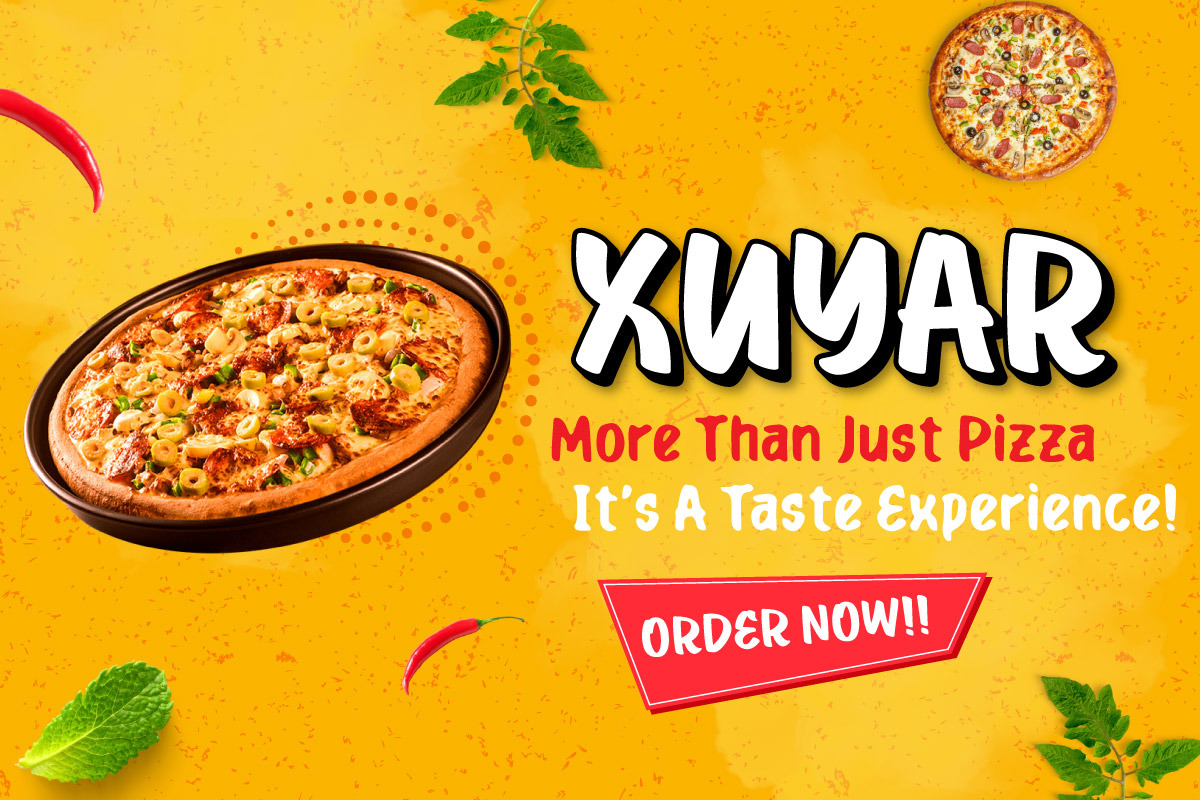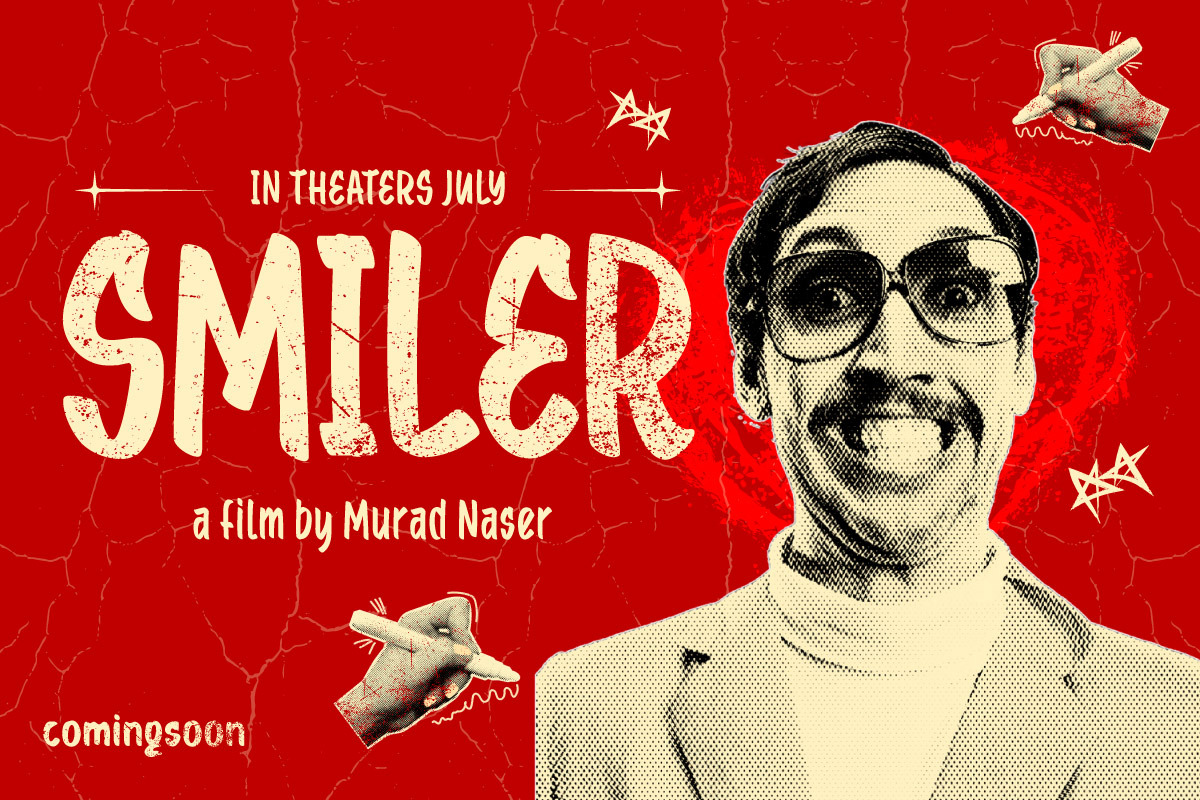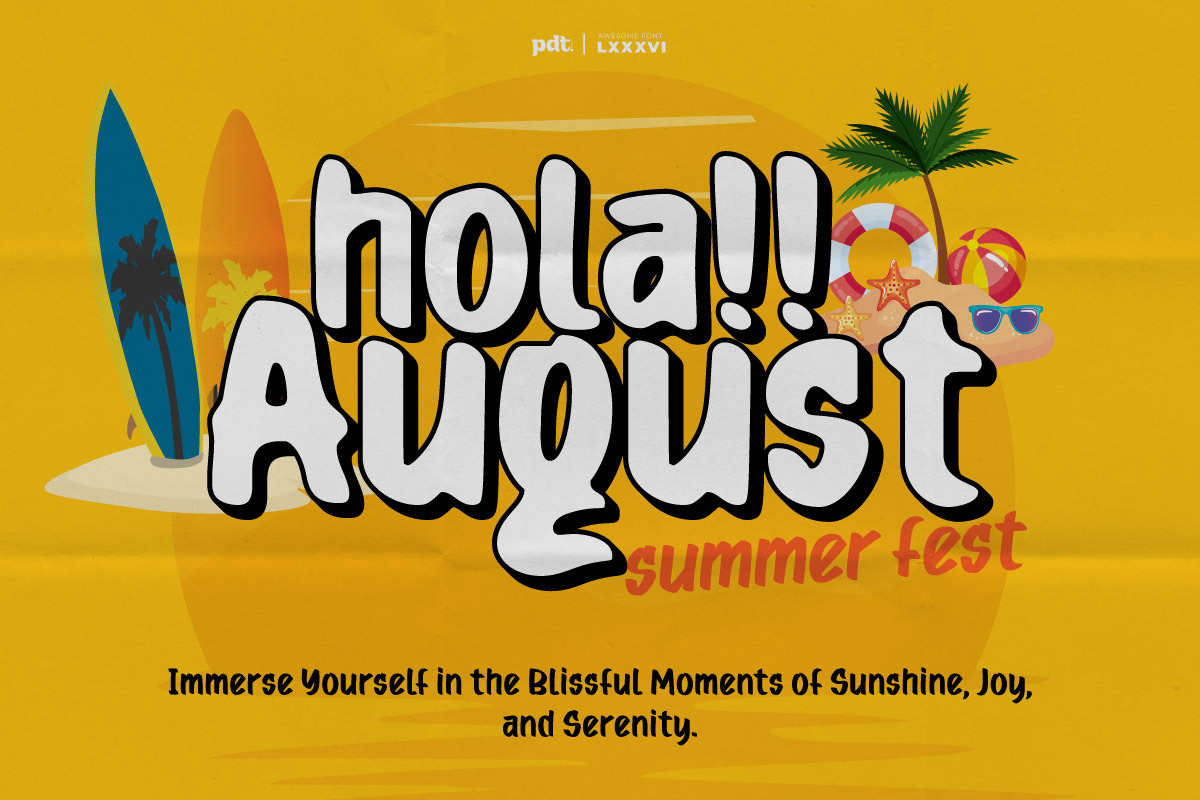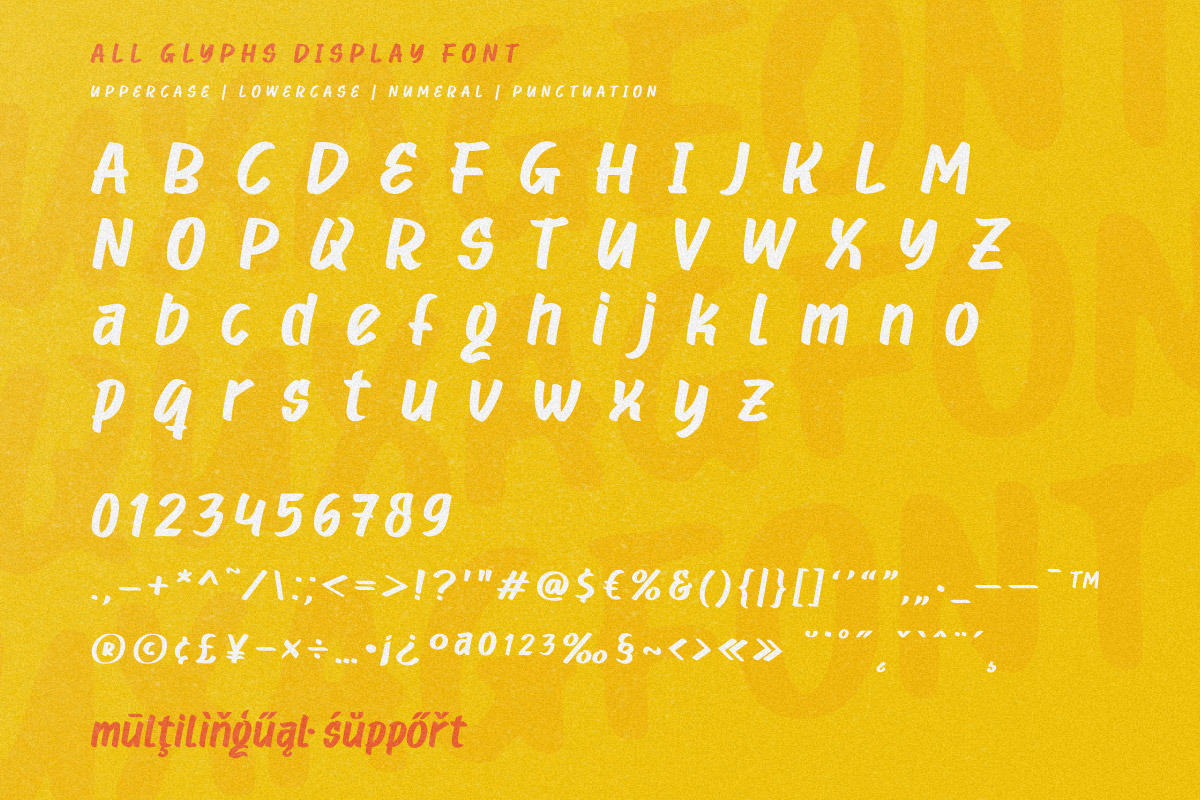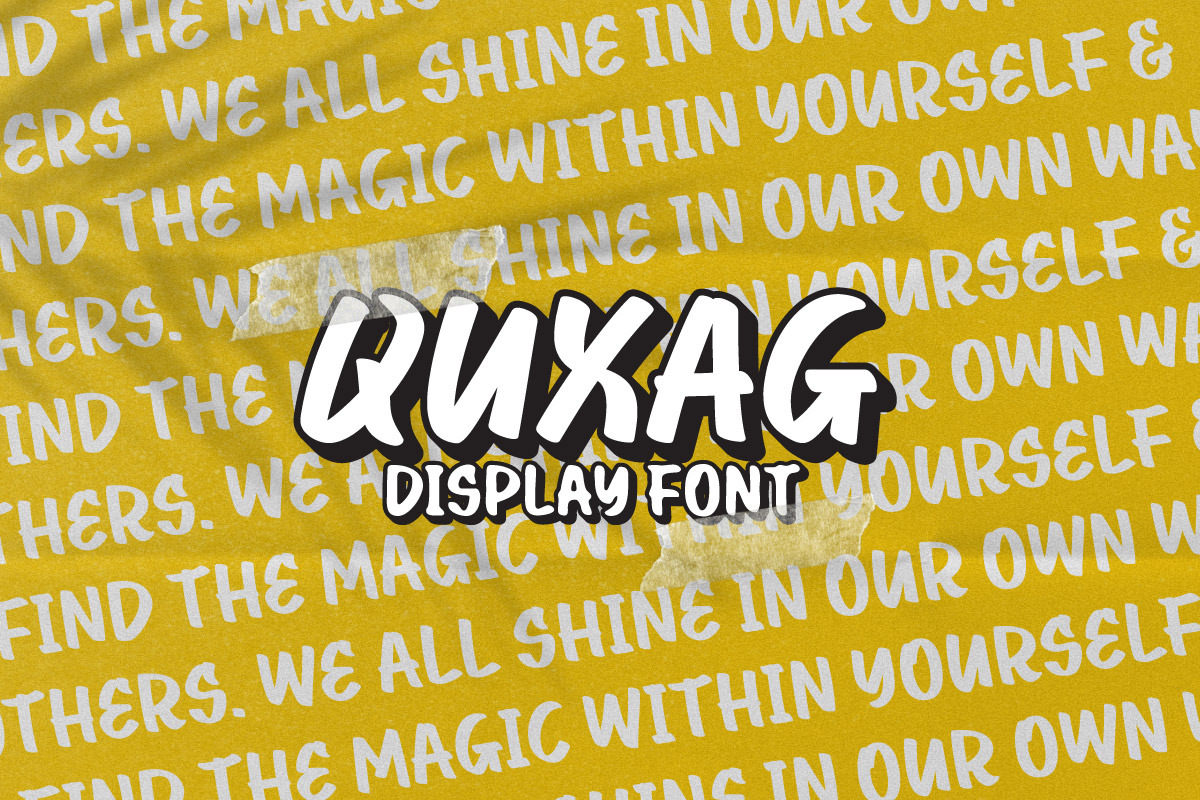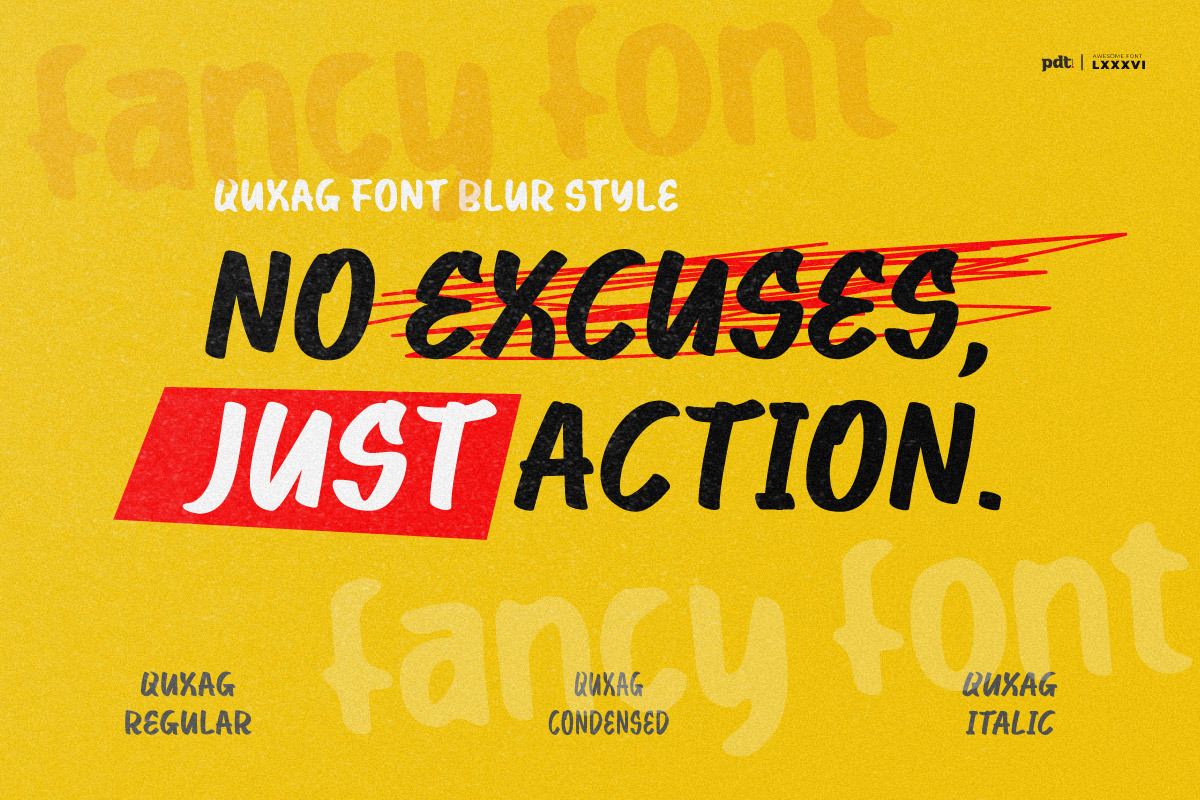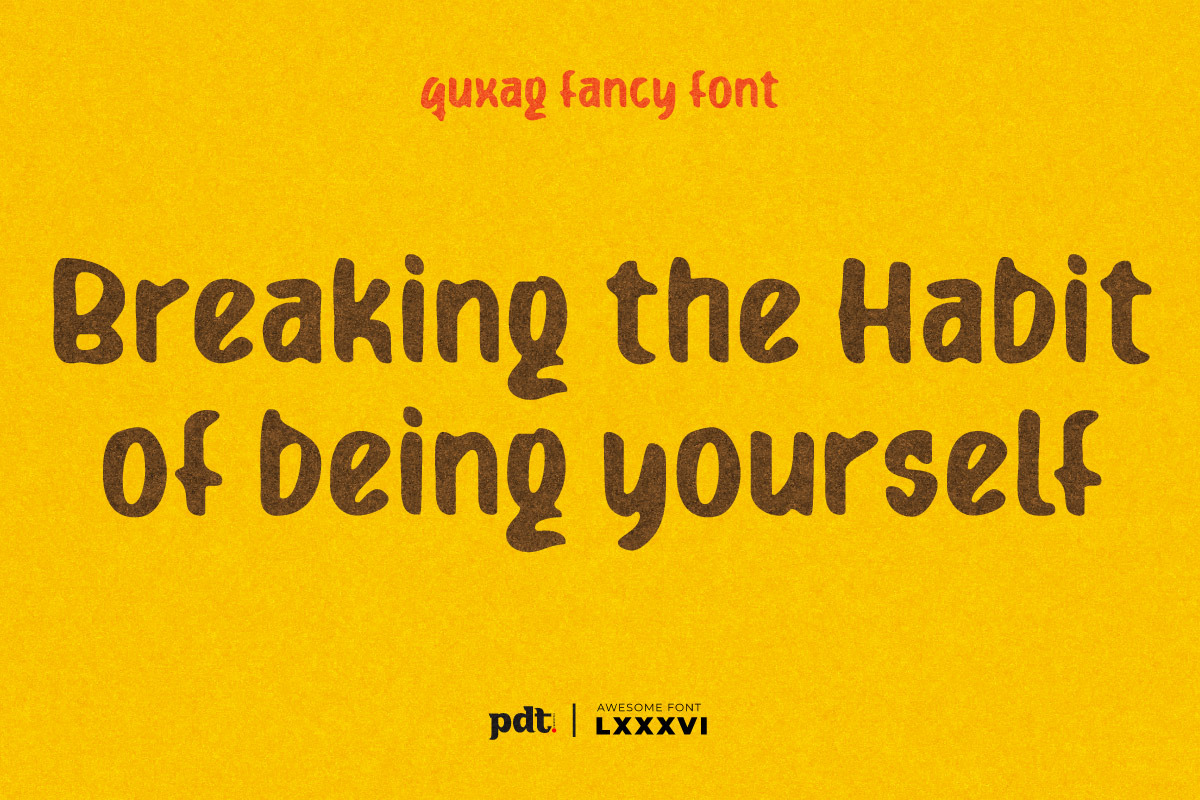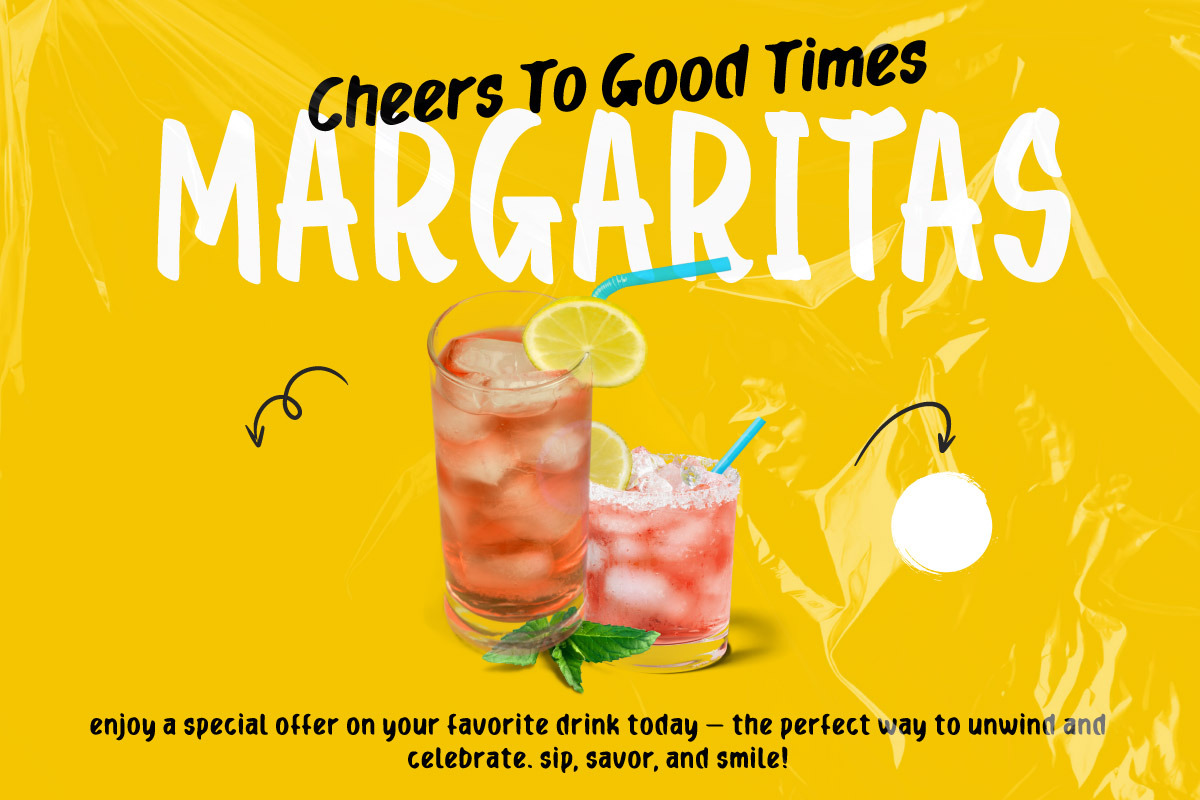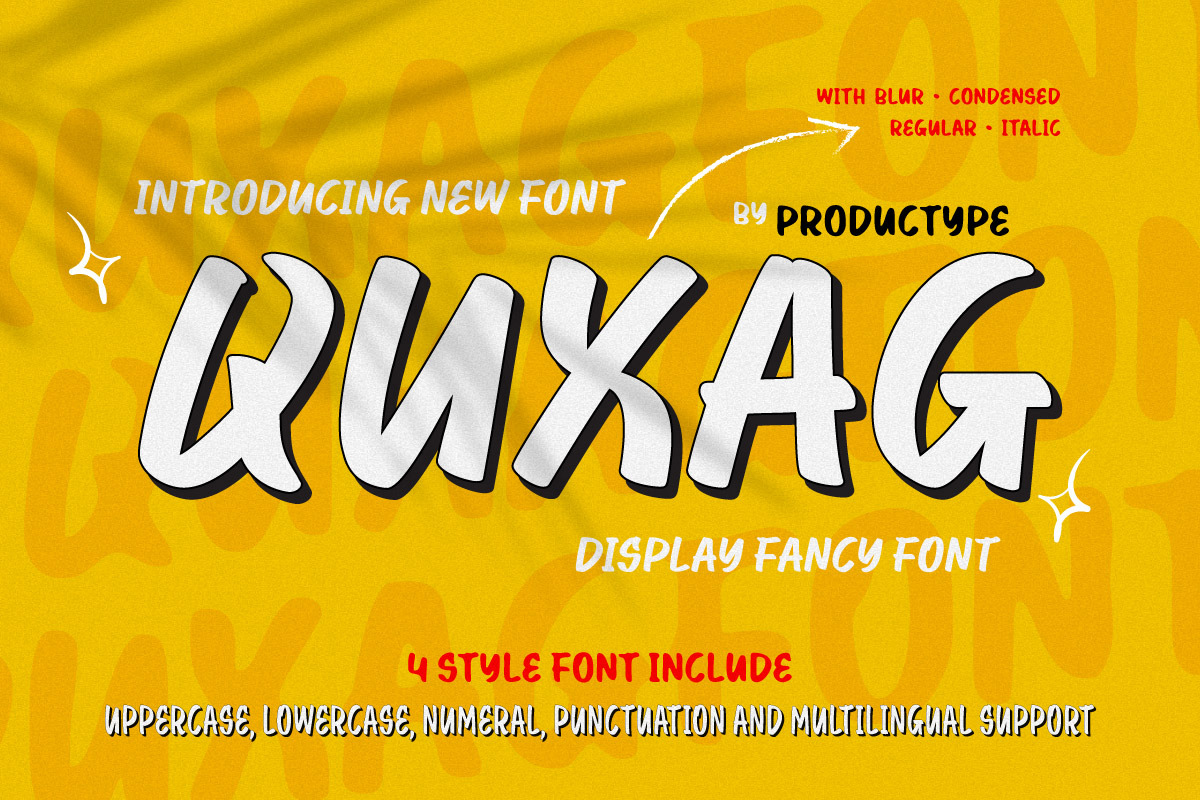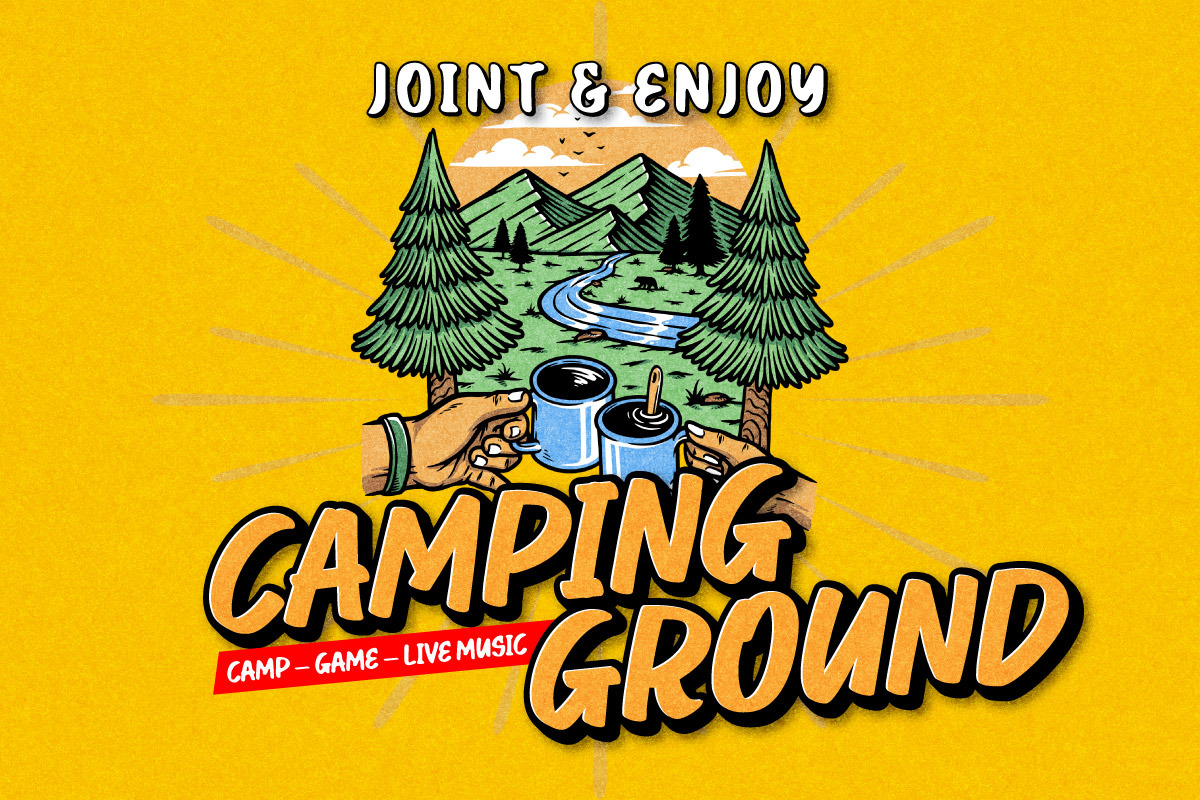
Quxag - Display Font
Quxag is a stylish and sophisticated display font that blends elegance with a modern artistic twist. Designed to stand out, Quxag features unique letterforms with an upscale vibe—making it a perfect choice for branding, fashion editorials, logos, packaging, or any design that requires a touch of luxurious flair.
Its decorative strokes and balanced spacing offer a visual rhythm that feels both classic and experimental. Whether you’re creating posters, banner promotions, or brand identities, Quxag elevates your design with its fancy and memorable appearance. Bring elegance, personality, and bold character into your creative work with this one-of-a-kind font.